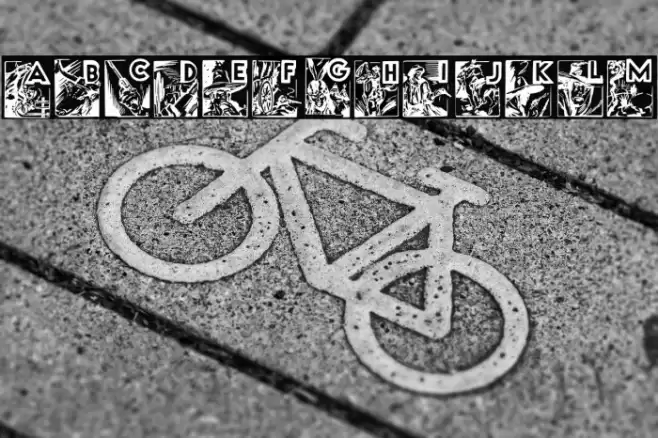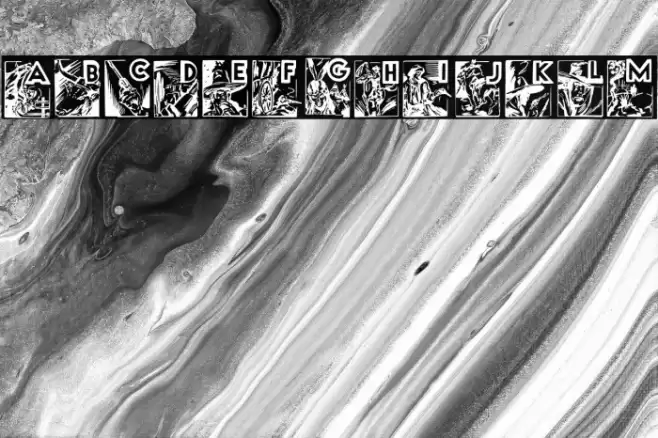
JMHRodeoCaps3-Regular Font
JMHRodeoCaps3-Regular Description
This font features a unique and artistic style, incorporating detailed illustrations within each character. The letters are designed with a comic book aesthetic, showcasing dynamic scenes and figures that give each character a distinct personality. The intricate designs are reminiscent of vintage comic strips, providing a nostalgic and playful feel. The font is highly decorative, making it suitable for projects that require a bold and eye-catching display. The characters are tightly spaced, enhancing the compact and cohesive appearance of the text. The contrast in stroke thickness is medium, allowing the illustrations to stand out while maintaining readability.
A decorative font with comic book-style illustrations within each character from Uncategorized fonts.
- Font: JMHRodeoCaps3-Regular
- Proposed Projects: Ideal for comic book covers, themed posters, creative branding, and any project requiring a playful, artistic touch.
- Character Spacing: Tight
- Overall Style: Vintage, Decorative